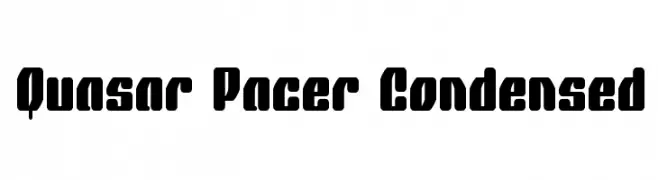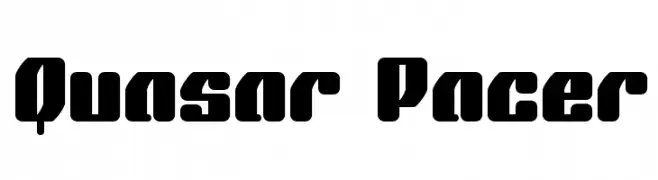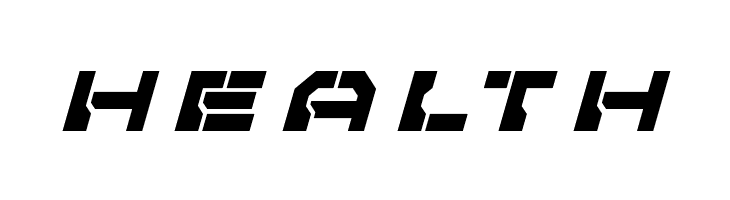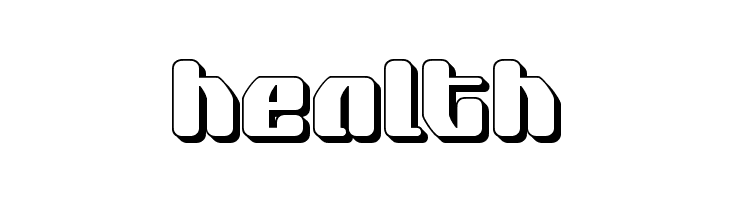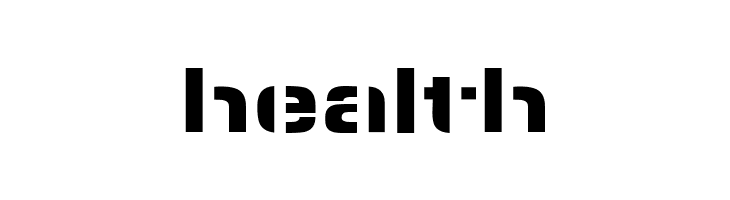
( Iconian Fonts - Daniel Zadorozny - www.iconian.com )
A bold, italic, futuristic font with sharp, angular lines and geometric shapes.
( JBFoundry - Jean Boyault - jean.boyault.pagesperso-orange.fr/ )
An elegant script font with graceful curves and intricate details.
( Marley Did It - www.marleydidit.com )
A bold, geometric font with a modern, stencil-like design.
( Insane Machina - Fernando Henrique de Sousa - www.insanemachina.com )
A Gothic-style font with intricate, angular strokes and elaborate serifs.
( Insane Machina - Fernando Henrique de Sousa - www.insanemachina.com )
A decorative blackletter font with bold, intricate letterforms.
( Iconian Fonts - Daniel Zadorozny - www.iconian.com )
A bold, modern font with thick, block-like characters and a geometric influence.
( Iconian Fonts - Daniel Zadorozny - www.iconian.com )
A bold, 3D geometric font with a strong, shadowed outline.
( Iconian Fonts - Daniel Zadorozny - www.iconian.com )
A bold, 3D italic font with a futuristic and dynamic style.
( Iconian Fonts - Daniel Zadorozny - www.iconian.com )
A bold, condensed font with a modern, geometric style.
( Iconian Fonts - Daniel Zadorozny - www.iconian.com )
A bold, condensed, italic font with a dynamic and modern style.